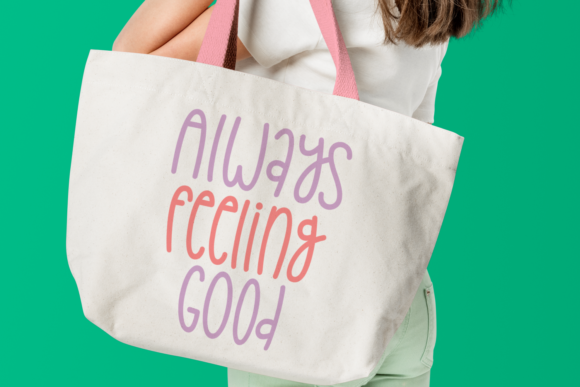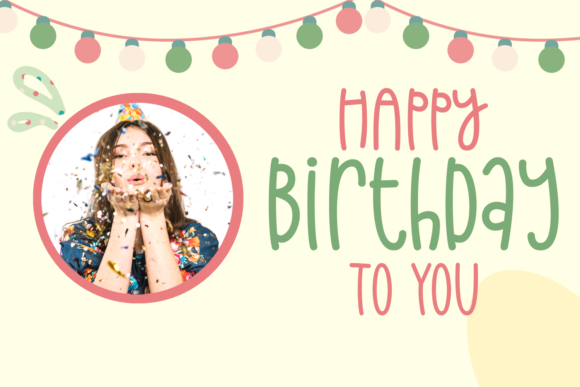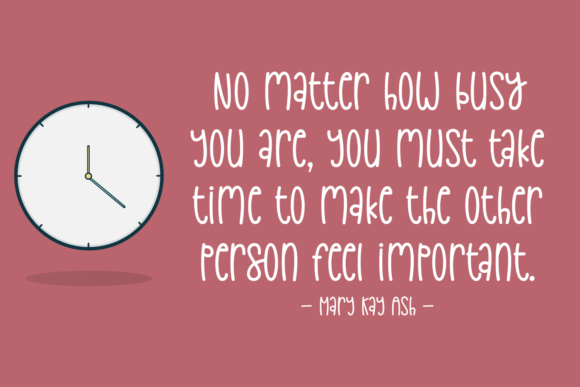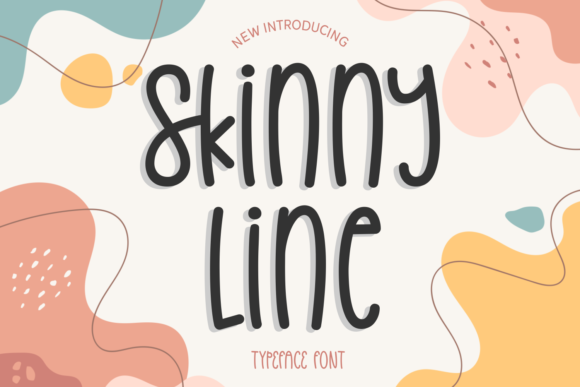
Introduction to Skinny Line Font
Skinny Line is a display font with thin lines.
Grab this creative font because it’s perfect for birthday cards, movies, quotes, personal branding, logos, covers, music, posters, etc .
Key Features of Skinny Line Font